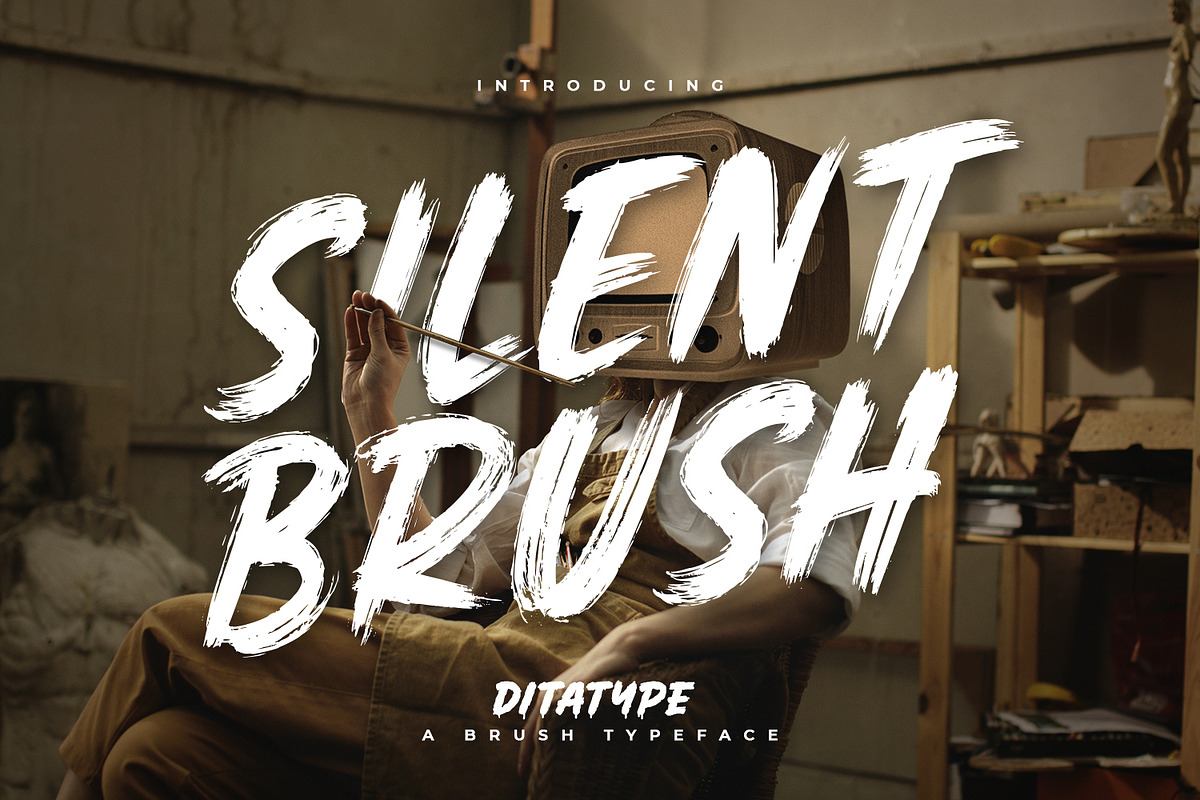
Silent Brush Font Free Download is a graceful and artistic script typeface designed to evoke the beauty of brush lettering. With its fluid, hand-crafted strokes and elegant style, this font is perfect for projects that require a personal, artistic touch, such as invitations, logos, greeting cards, social media graphics, and more.
The delicate brush-like design of Silent Brush brings a sophisticated and refined feel to your typography. Whether you're creating for a luxury brand, an elegant event, or a creative campaign, this font adds a unique, handmade charm to your designs.